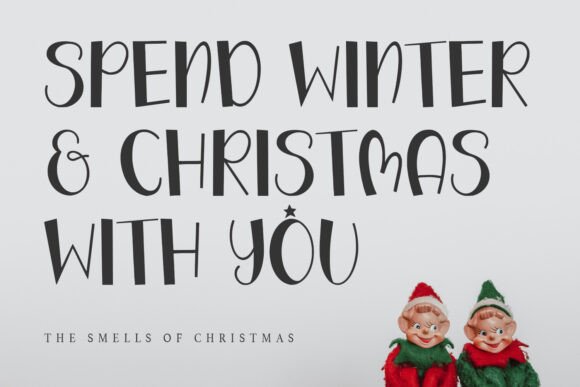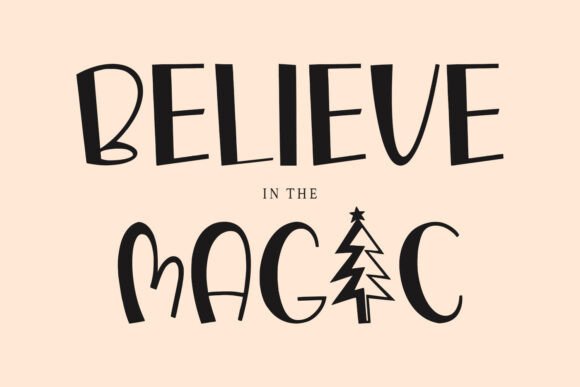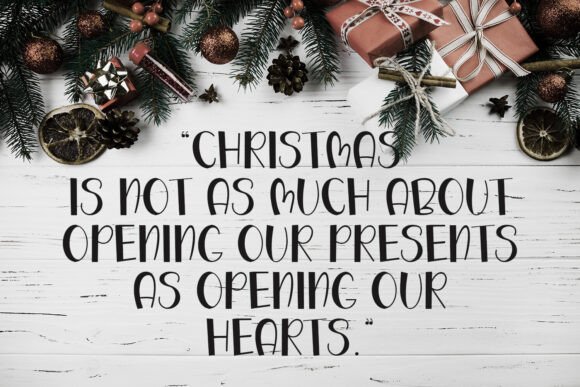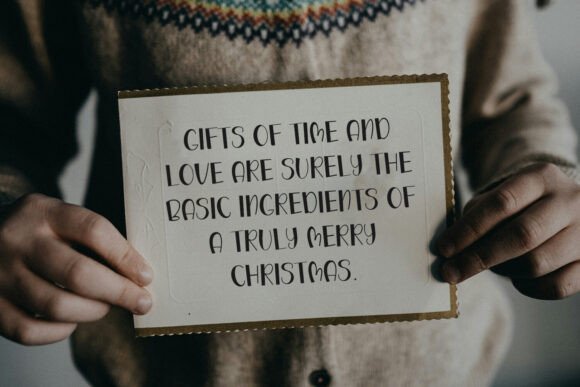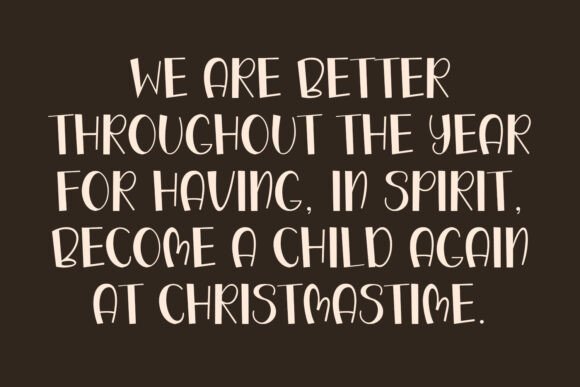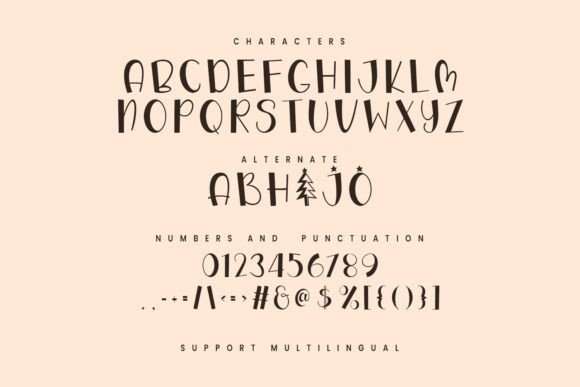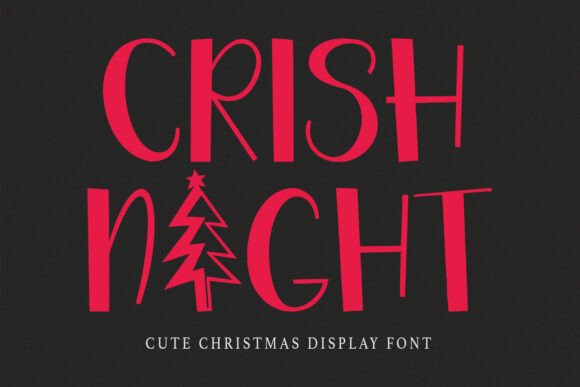
Introducing Crishnight Font: The Perfect Holiday Companion for Designers and Crafters
Are you looking for a font that embodies the joy and cheer of the Christmas season? Look no further than Crishnight Font! This adorable Christmas display font is designed to bring a playful and festive touch to your holiday projects, making it an ideal choice for designers and crafters alike.
What Makes Crishnight Font So Special?
Crishnight Font is a cute and cheerful display font that features playful letters and shapes, perfectly capturing the spirit of the holiday season. Its friendly and warm feel makes it an excellent choice for creating holiday cards, festive decorations, and fun Christmas projects. Whether you’re designing a Christmas card, a holiday party invitation, or a festive decoration, Crishnight Font is sure to add a touch of magic to your creations.
Key Features of Crishnight Font
- Playful Letters: Crishnight Font features playful letters that are sure to bring a smile to your face. Each letter is carefully designed to be fun and engaging, making it perfect for holiday projects.
- Cheerful Shapes: The font comes with a variety of cheerful shapes that can be used to add an extra touch of festivity to your designs.
- Festive Feel: Crishnight Font has a friendly, warm feel that’s perfect for capturing the joyful spirit of the season.
Crishnight Font is an excellent choice for designers and crafters who want to add a personal touch to their holiday projects. Whether you’re creating custom holiday cards, decorations, or gifts, this font is sure to make your projects stand out. Here are just a few ideas for using Crishnight Font:
- Holiday Cards: Create custom holiday cards with Crishnight Font and add a personal touch to your greetings.
- Festive Decorations: Use Crishnight Font to create festive decorations, such as holiday banners, garlands, and signs.
- Christmas Projects: Add a touch of magic to your Christmas projects, such as gift tags, wrapping paper, and DIY crafts.
Tips for Using Crishnight Font
Here are a few tips for getting the most out of Crishnight Font:
- Experiment with Colors: Try pairing Crishnight Font with different colors to create a unique and festive look.
- Mix and Match: Combine Crishnight Font with other fonts and shapes to create a one-of-a-kind design.
- Be Creative: Don’t be afraid to think outside the box and come up with creative ways to use Crishnight Font.
Crishnight Font is a delightful Christmas display font that’s perfect for designers and crafters who want to add a touch of festive cheer to their holiday projects. With its playful letters, cheerful shapes, and friendly feel, this font is sure to capture the joyful spirit of the season. Whether you’re creating holiday cards, festive decorations, or fun Christmas projects, Crishnight Font is an excellent choice. So why wait? Download Crishnight Font today and start creating your own magical holiday designs!